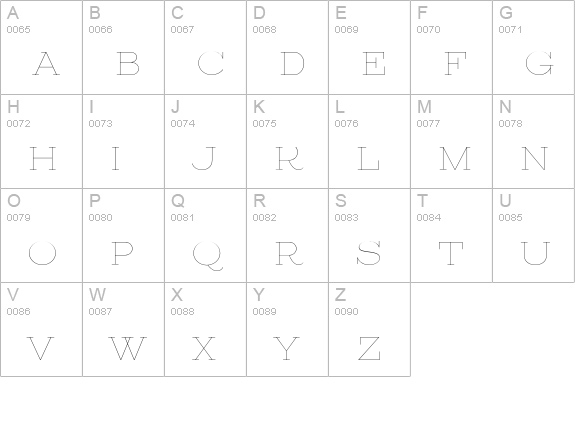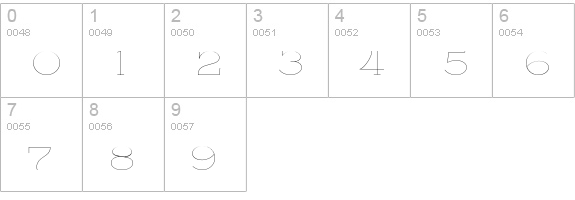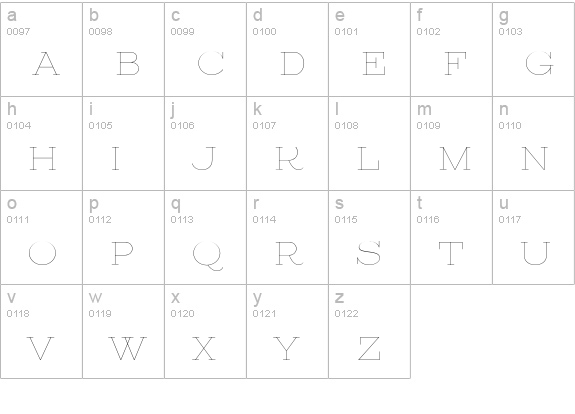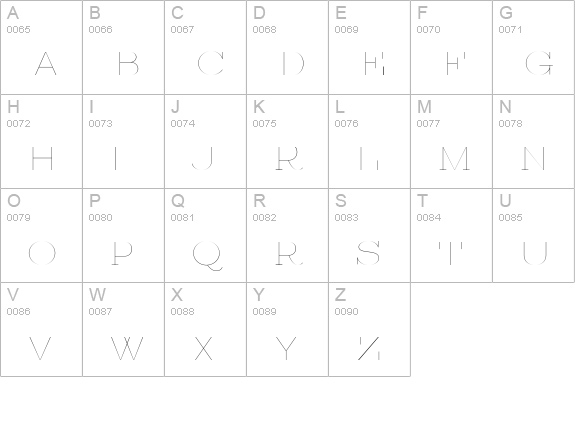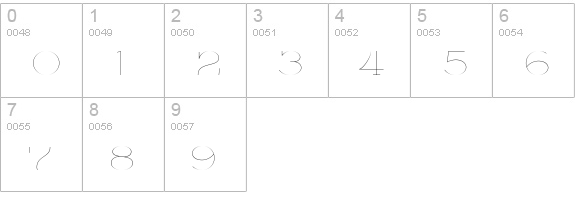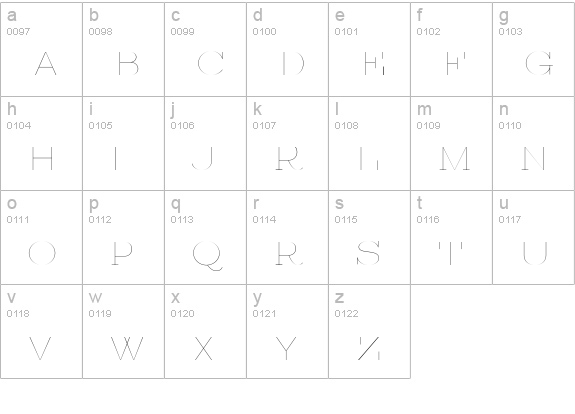
Erotica Capitals Big font is a stunning display typeface that exudes sensuality and elegance. Its bold and intricate design commands attention and adds a touch of sophistication to any project. The exaggerated curves and intricate details make this font perfect for creating captivating headlines, titles, and logos that will leave a lasting impression. What's even better is that Erotica Capitals Big font is available for free download at FontsMarket.com. This means you can elevate your design projects without breaking the bank. Don't miss out on the opportunity to add this exquisite font to your collection and take your designs to the next level. Download Erotica Capitals Big font today and let your creativity flow freely.